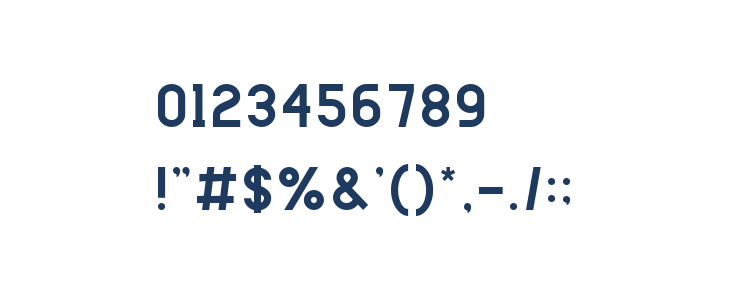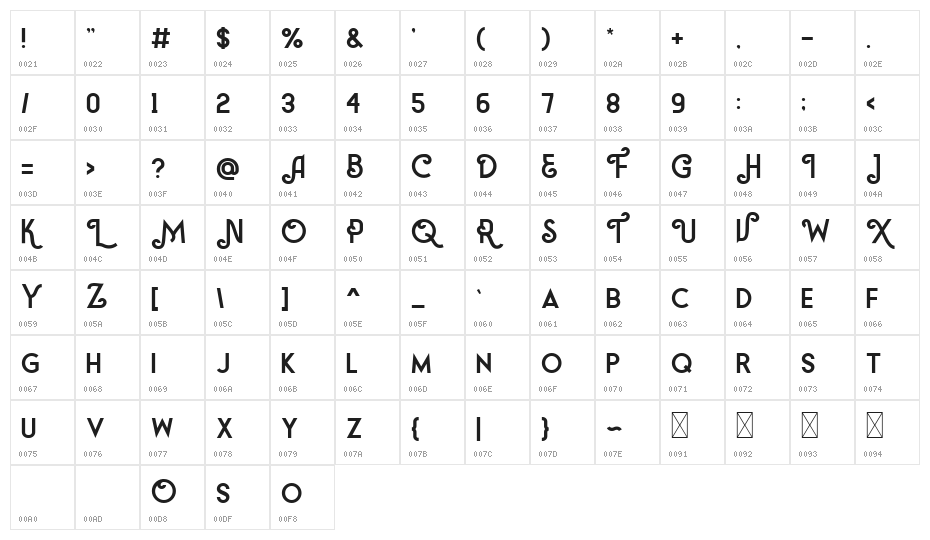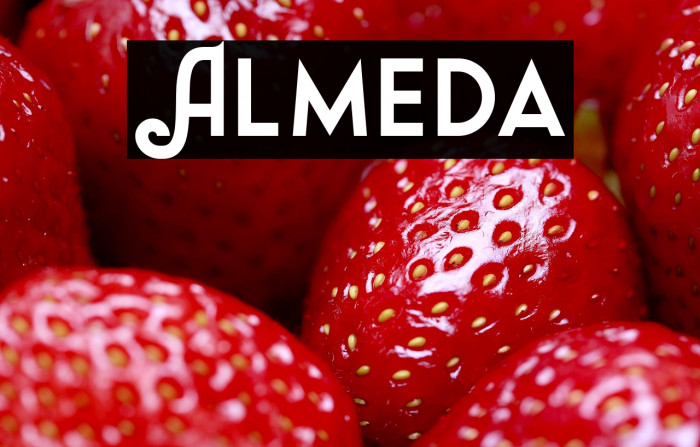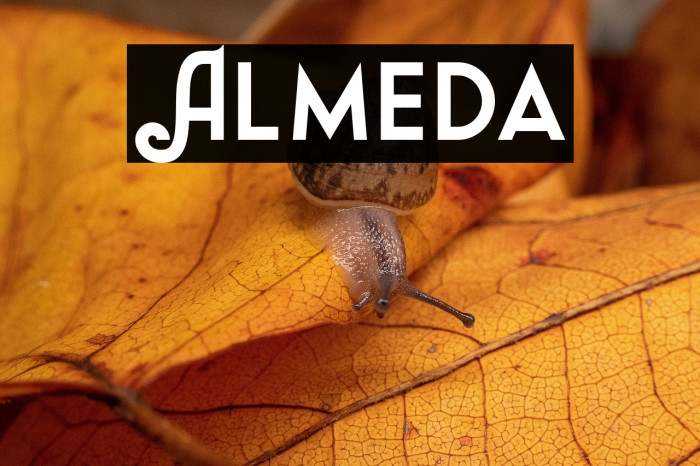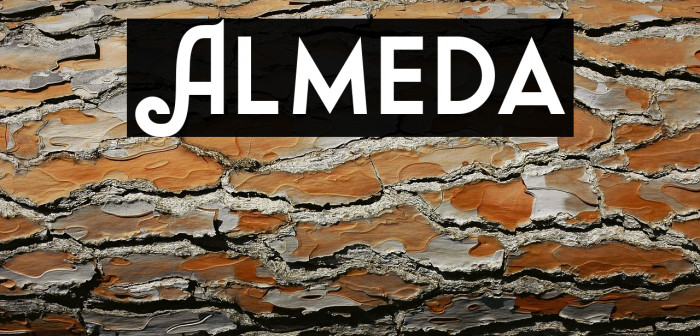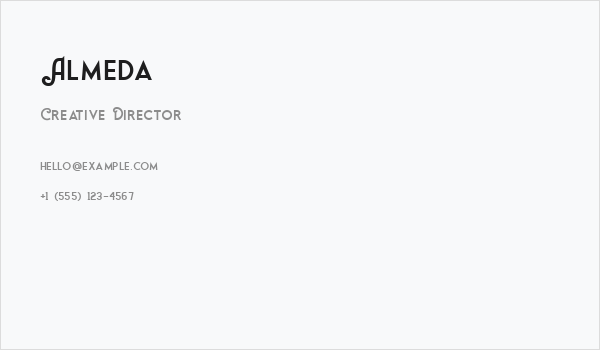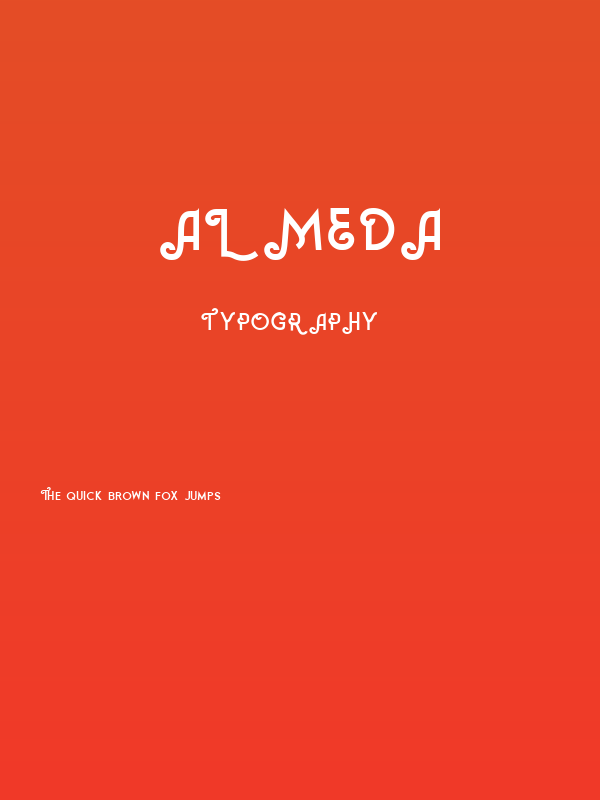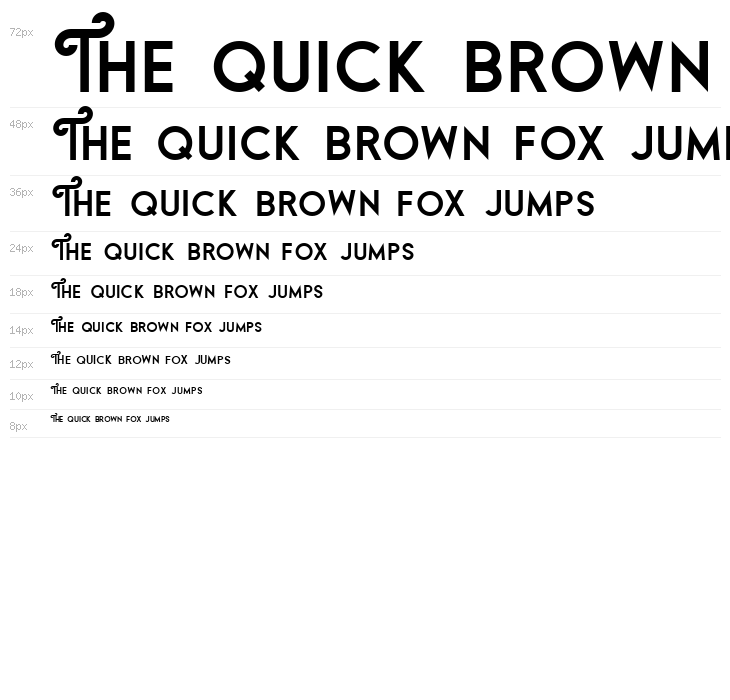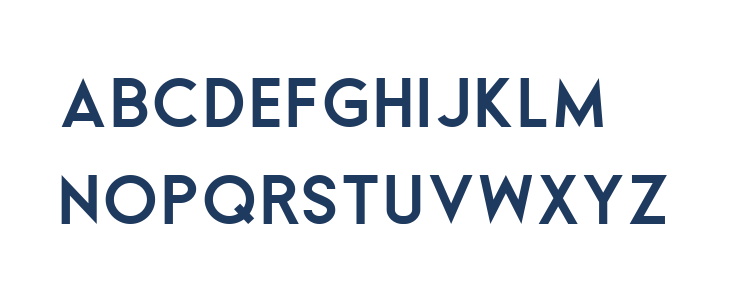
Almeda Font
Almeda Description
This font features a unique blend of decorative and modern elements. The uppercase letters have a playful, whimsical style with curls and swirls, adding a touch of elegance and creativity. The lowercase letters are more straightforward, offering a clean and bold appearance. The numerals are clear and easy to read, maintaining a consistent weight with the uppercase letters. Special characters are designed with the same decorative flair as the uppercase letters, making them stand out. This font is versatile, suitable for both decorative and practical applications.